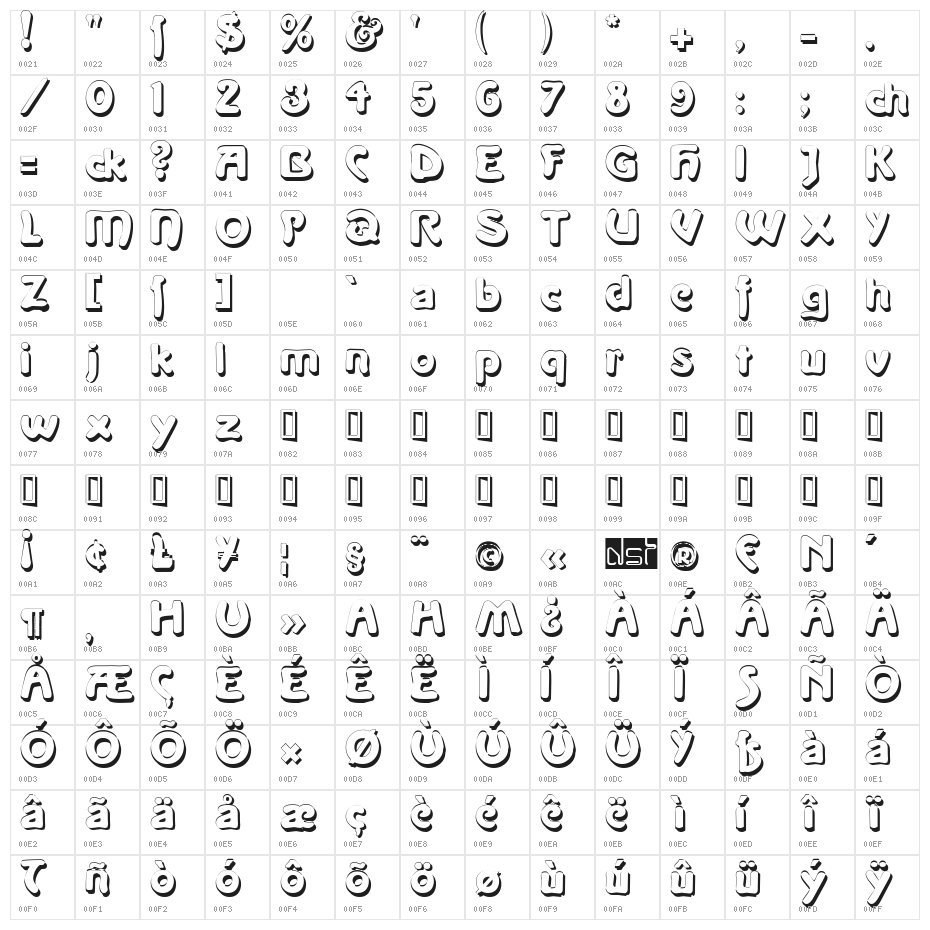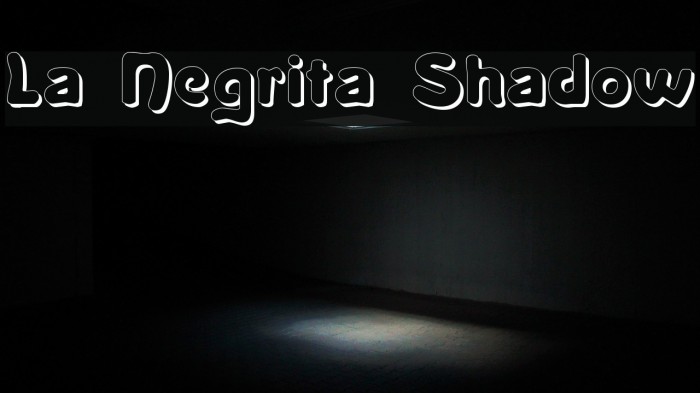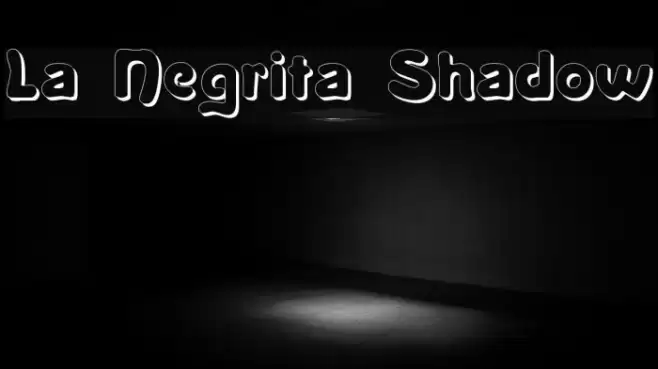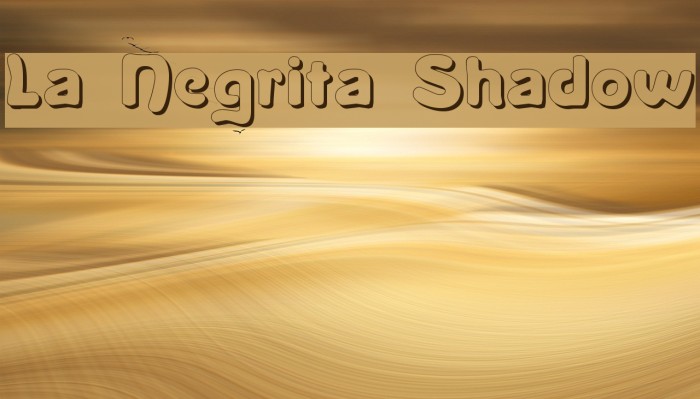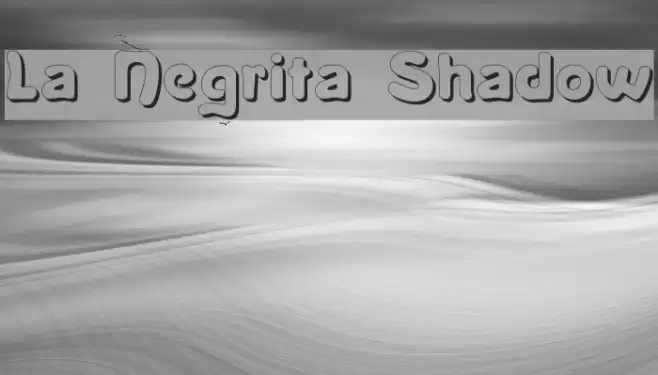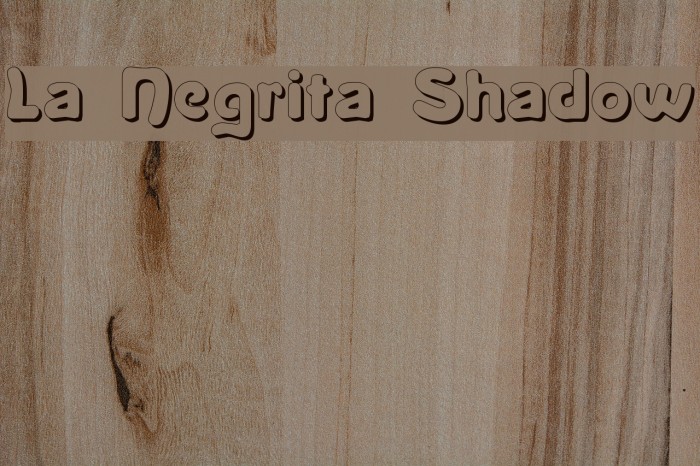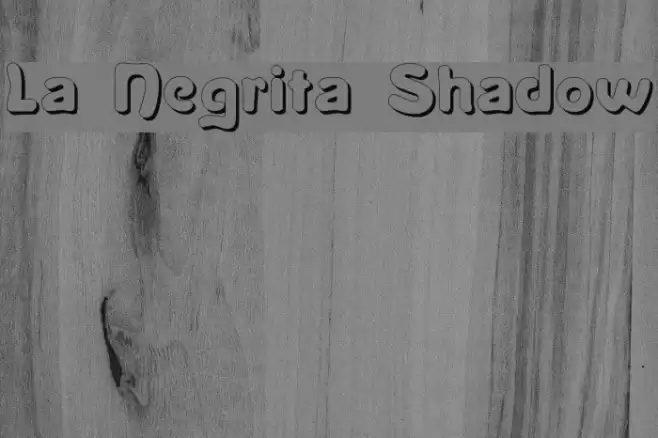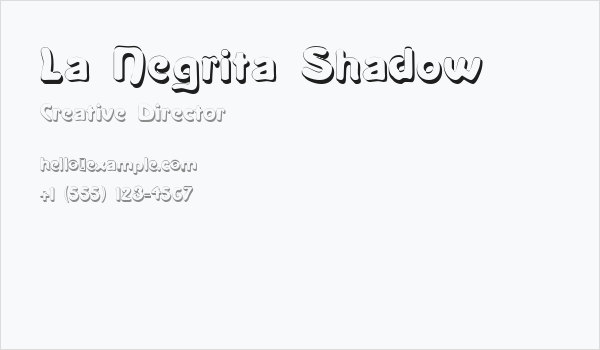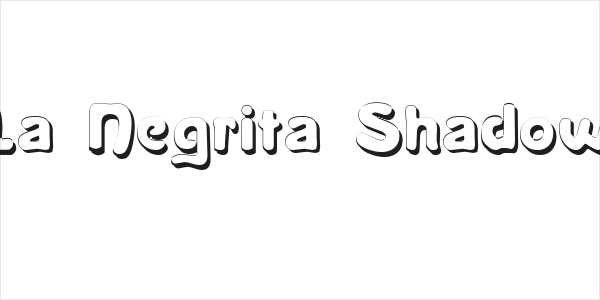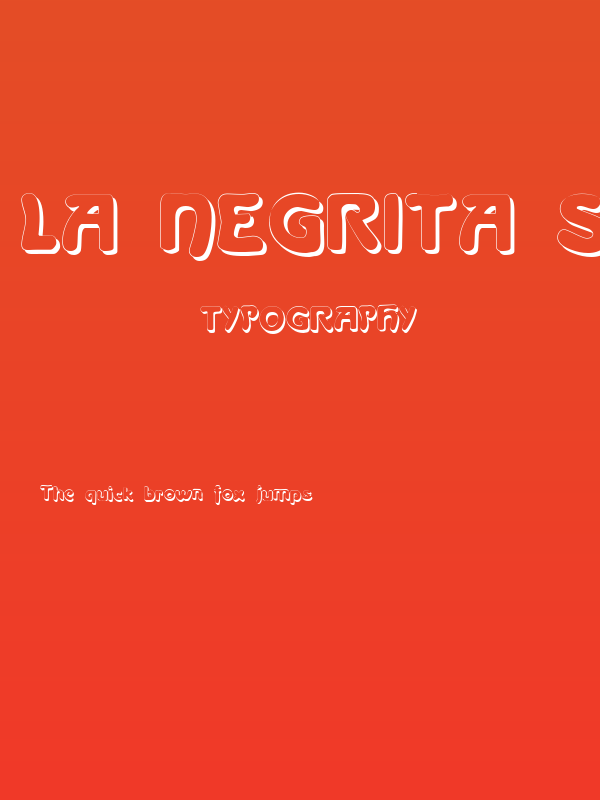
La Negrita Shadow Font
La Negrita Shadow Description
This font features a bold, playful style with a shadow effect that gives it a three-dimensional appearance. The characters are rounded and have a soft, friendly look, making them stand out with a distinct presence. The shadow adds depth and a sense of movement, making it ideal for eye-catching designs. The uppercase and lowercase letters maintain a consistent style, with the shadow consistently applied to each character. Numbers and special characters are also included, following the same design principles. This font is perfect for projects that require a fun and engaging visual impact.
| Overall Style | Playful, Modern |
| Proposed Projects | Ideal for posters, children's books, playful branding, and eye-catching headlines. |